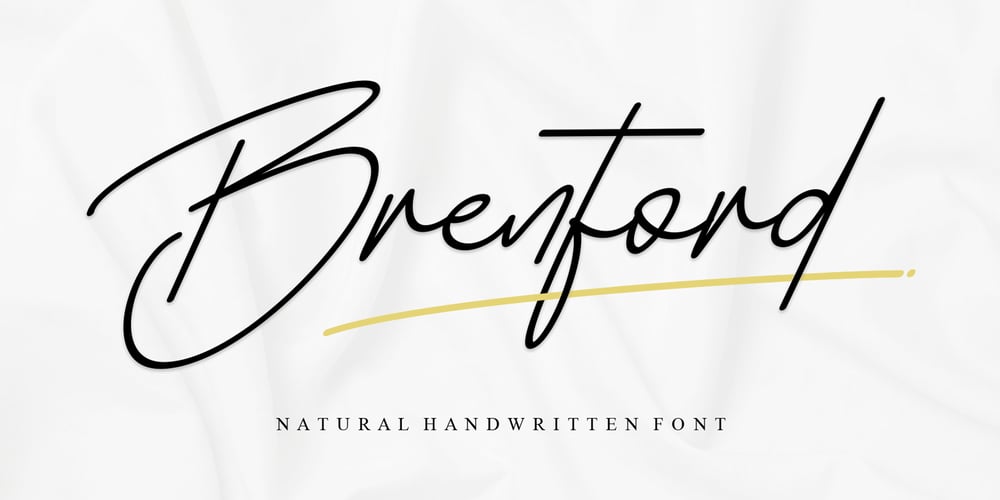
Brenford Font Family was designed by Ahmad Afandi and published by Letterafandi Studio. Brenford contains 2 styles and family package options. Introducing “Brenford”, a truly organic handwritten font. With its authentic appeal, Brentford effortlessly enhances any design journey, be it crafting logos, accentuating invitations, or a host of other design explorations. Experience the simplistic elegance and versatile usability of Brentford, the font that brings a touch of craftsmanship to your designs.